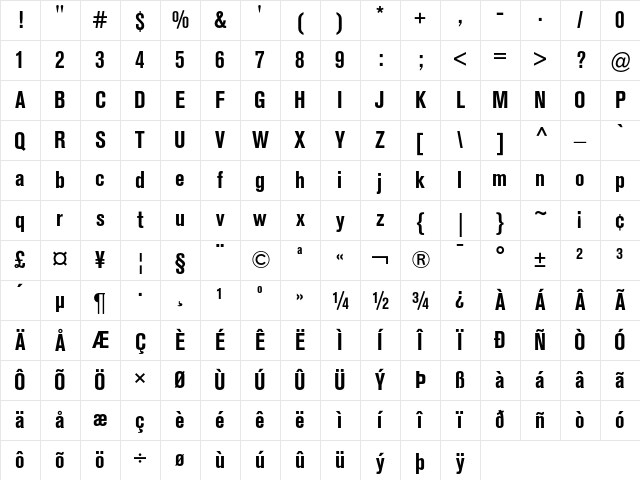
Complete Berthold Akzidenz Grotesk BE Bold Condensed glyph index. Displaying only characters natively supported by Berthold Akzidenz Grotesk BE Bold Condensed font.
Berthold Akzidenz Grotesk BE takes a clean, functional approach - its unadorned letterforms prioritise legibility and work reliably across screen and print environments. Its bold stroke weight gives it real presence on the page. Its narrow stance lets it pack a punch even in space-constrained designs.
Font Pairing: Use Berthold Akzidenz Grotesk BE for headlines alongside a lighter-weight sans or serif for body copy to establish clear visual hierarchy.
Pro Tip: Use Berthold Akzidenz Grotesk BE tightly set in headlines and banners - its condensed proportions make it ideal for maximum impact in minimum horizontal space.